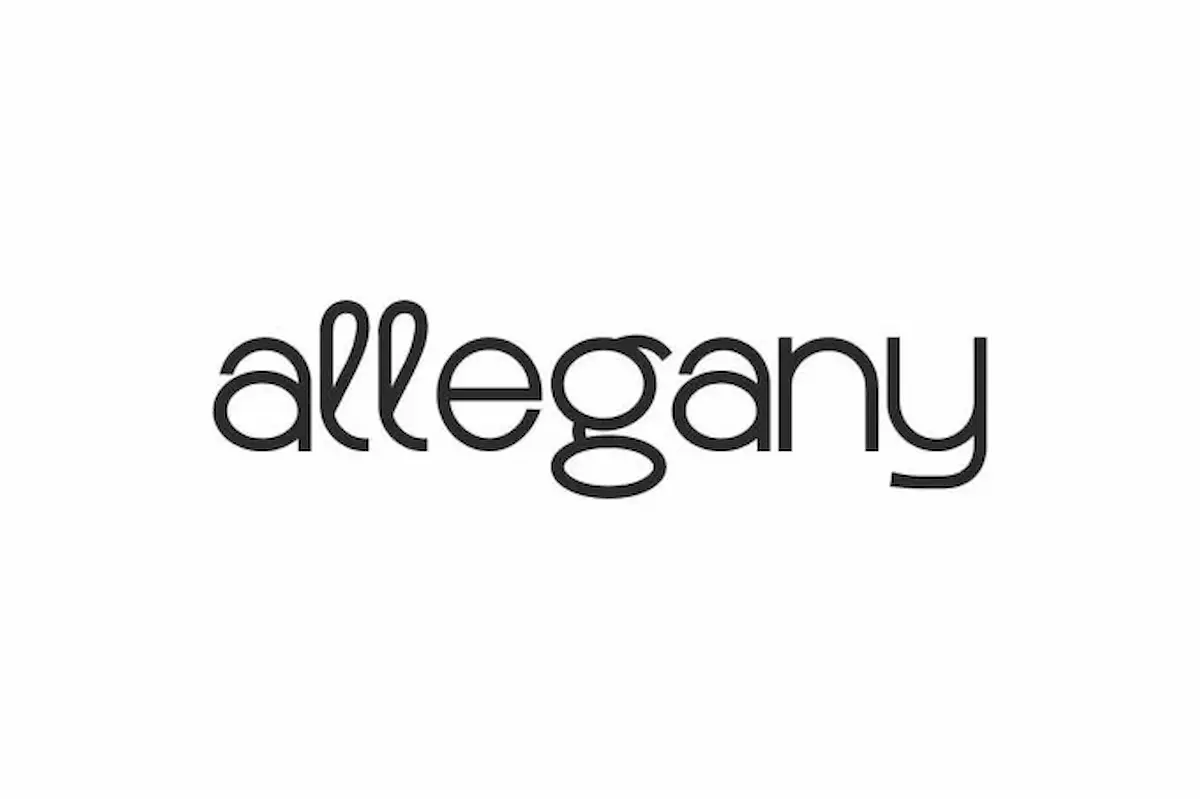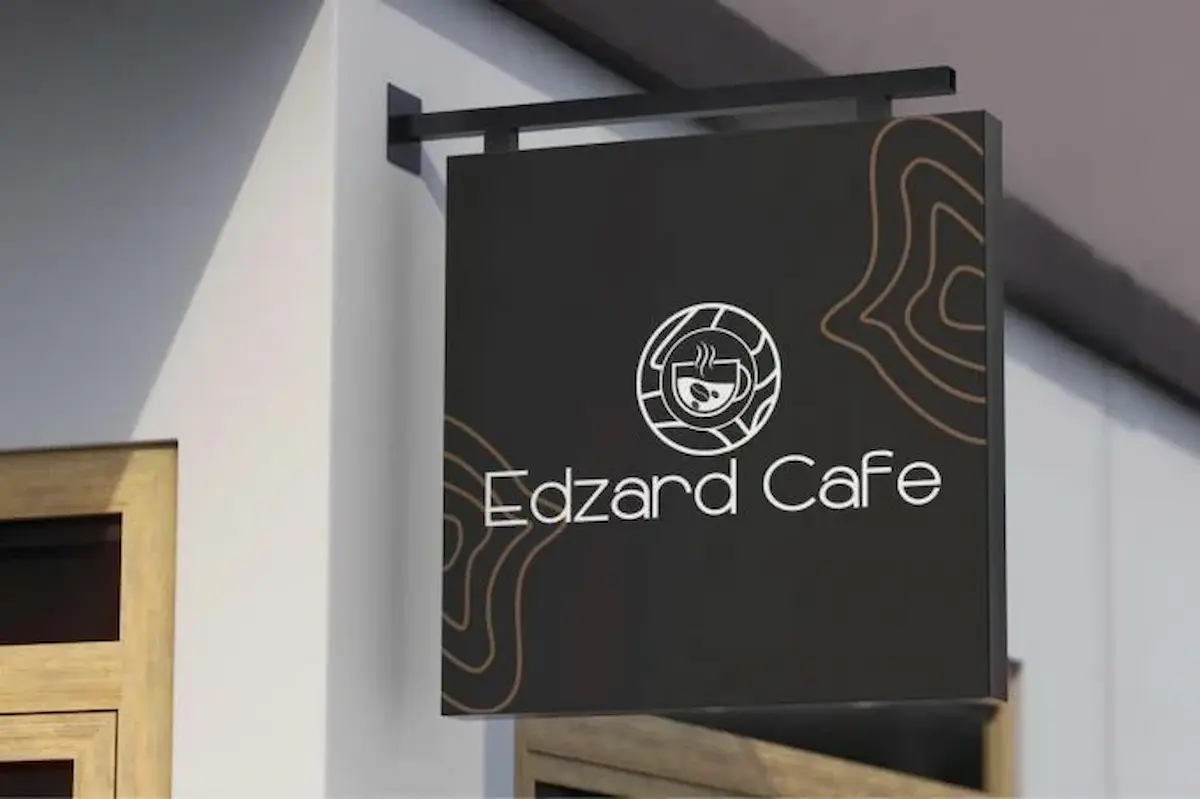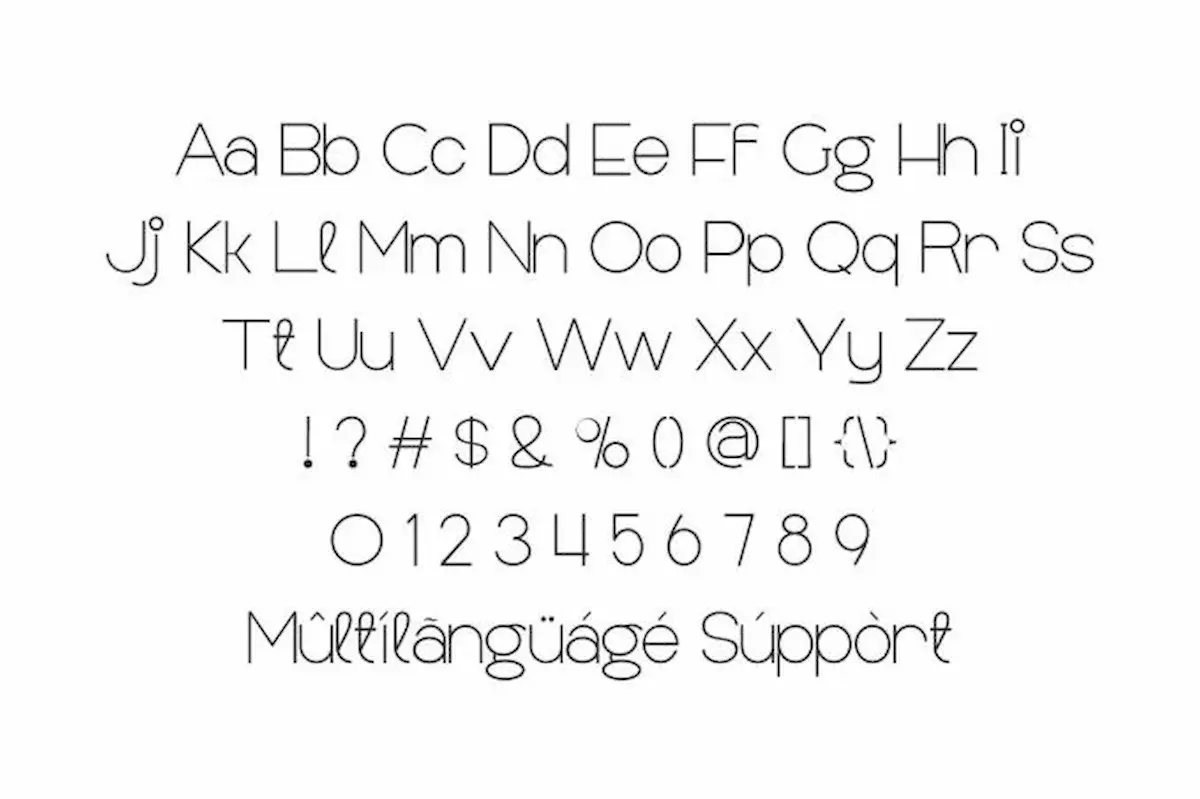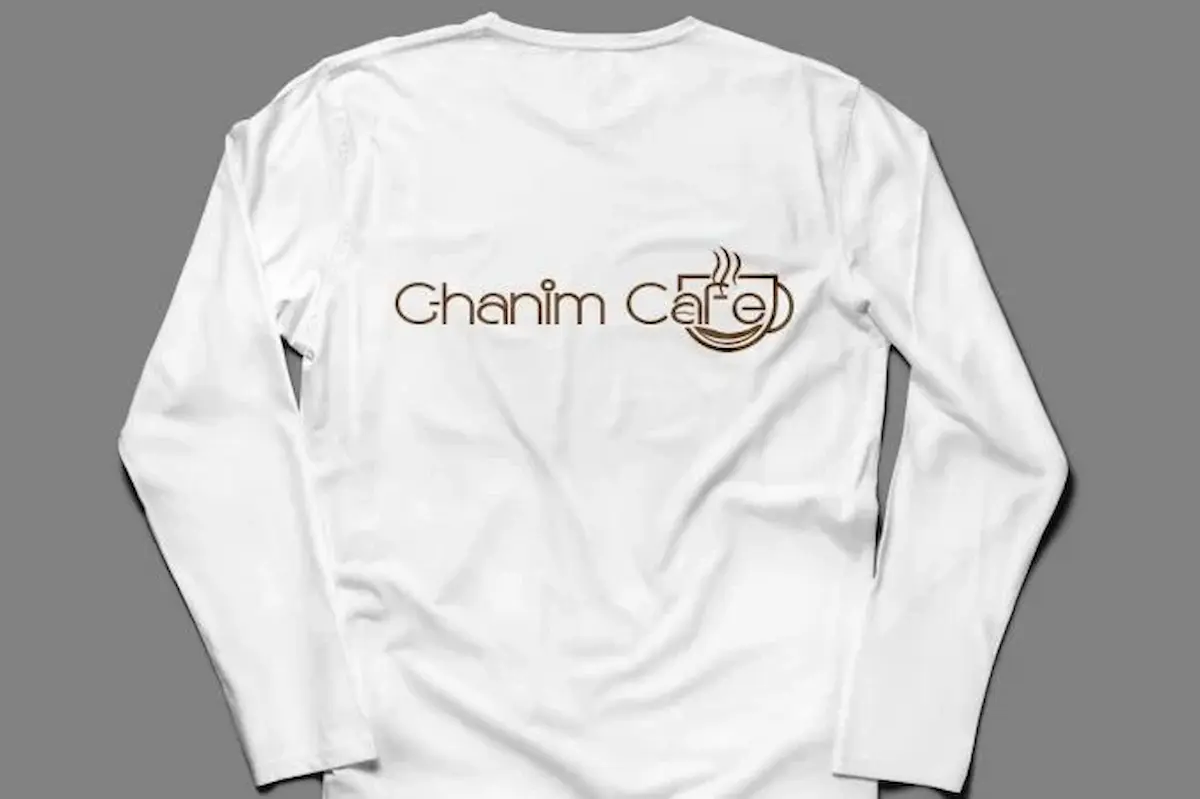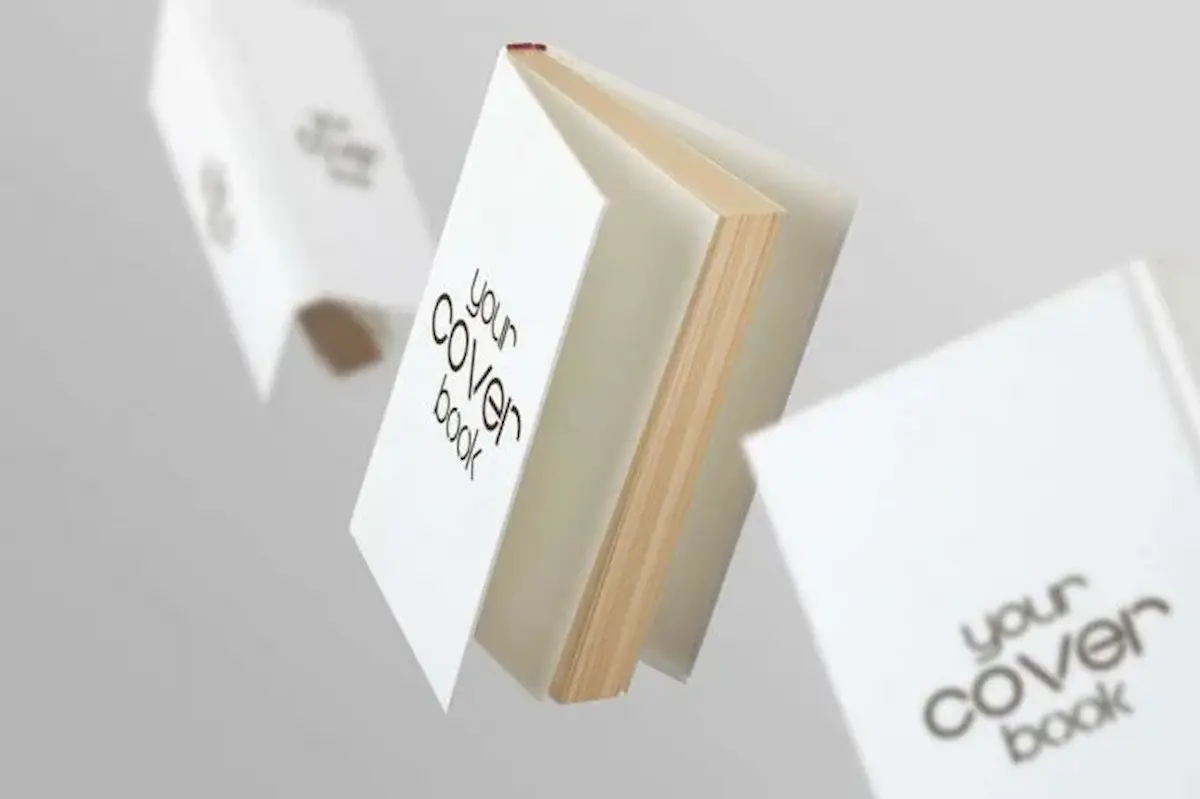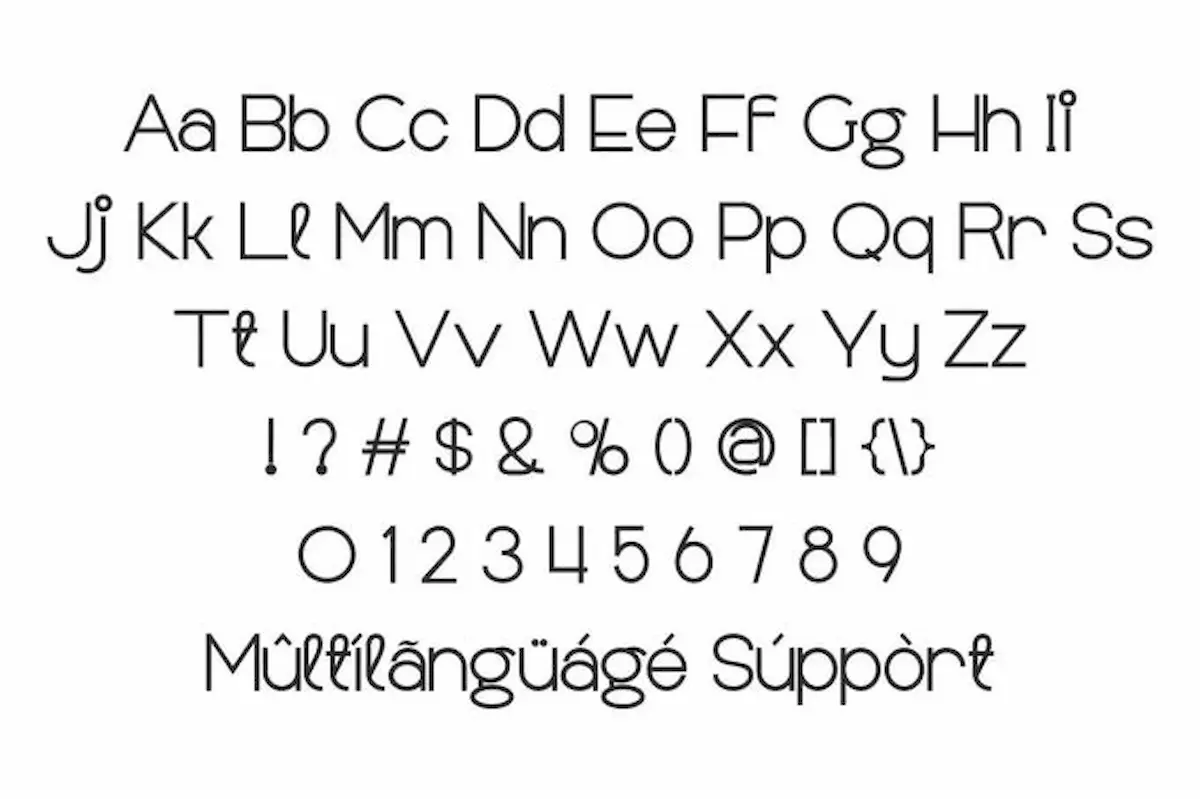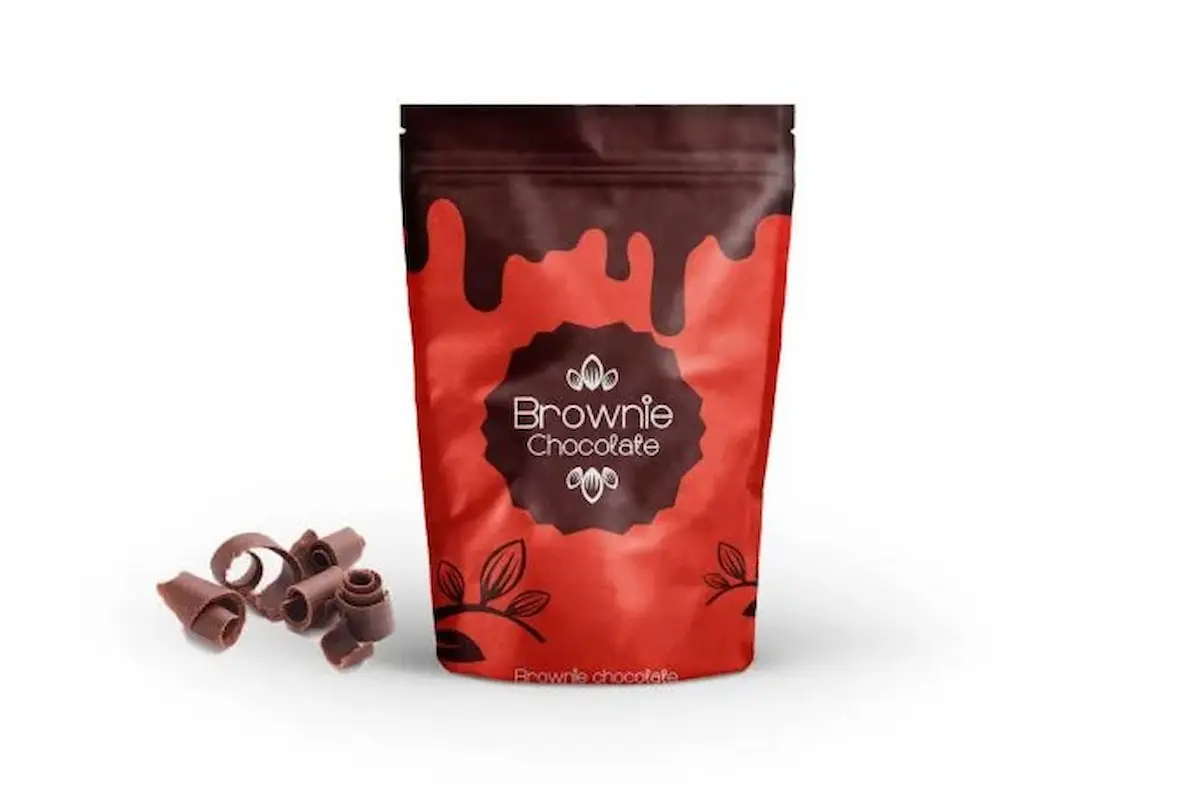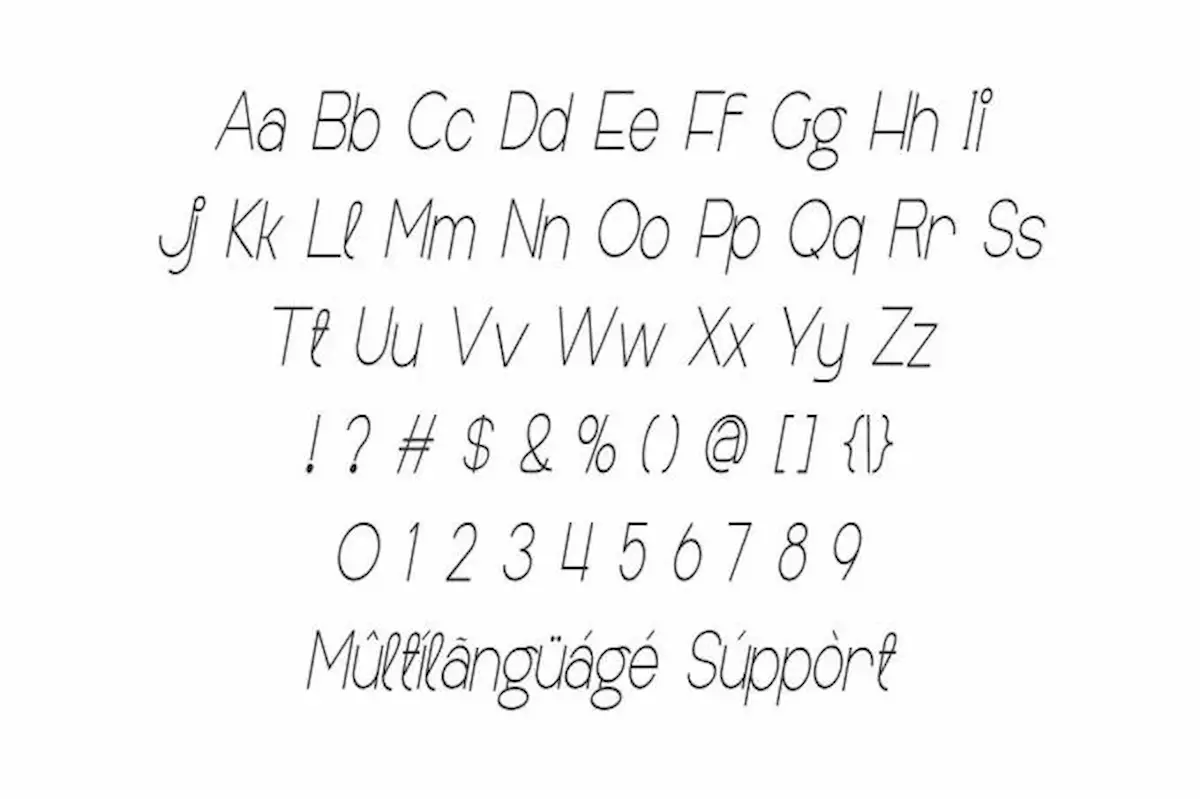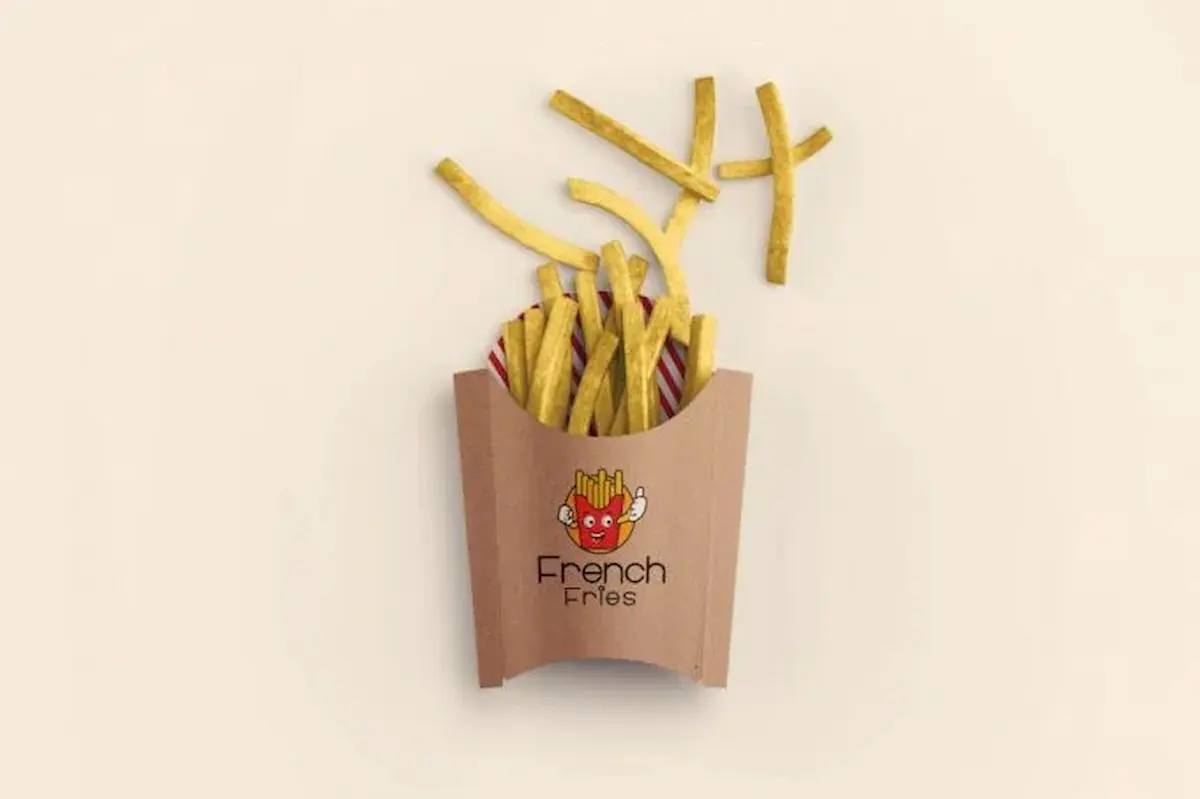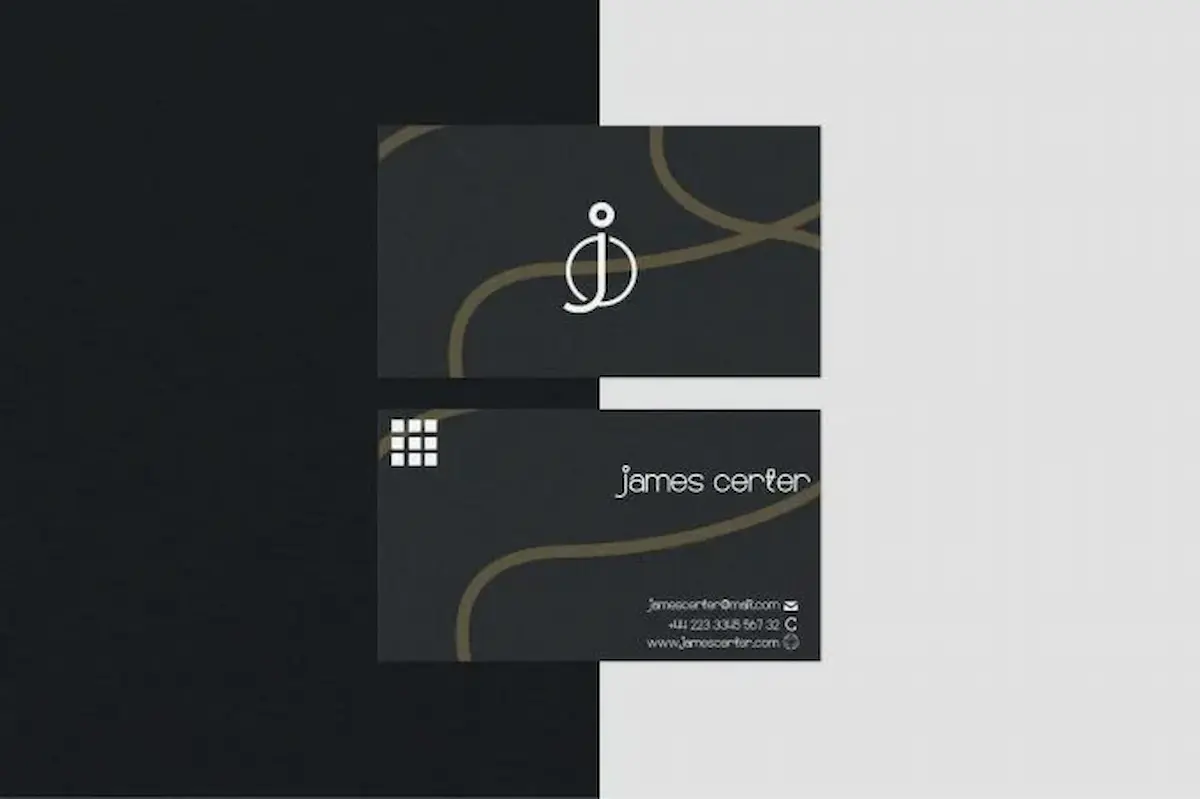
Allegany Font is an elegant font family inspired by modern simplicity style. The font will be great for brandings, headline, labels, logos, or any projects that requires a contemporary elegant font.
Allegany Font is an elegant and modern sans serif display font family, exclusively designed by NihStudio. The font is inspired from the monochrome and simplicity of modern industries. The font shows a unique and minimalist design with balance of hard and smooth lines. The font comes with six styles and each one of them can stand on its own with stunning looks.
Allegany Font works great for any purposes including branding, fashion labels, films poster, magazines, packaging, quotes, signage, title. Each different weights give you full range to explore the real modern feels. The Six styles are : Regular, Italic, Condensed, Condensed Italic, Bold and Bold Italic. All full with Numbers and Punctuation also Extensive Language Support. Recommended software: Adobe Illustrator – Adobe InDesign – Adobe Photoshop – Inkscape – Microsoft Word and other design software. And compatibility for Mac OS or Windows